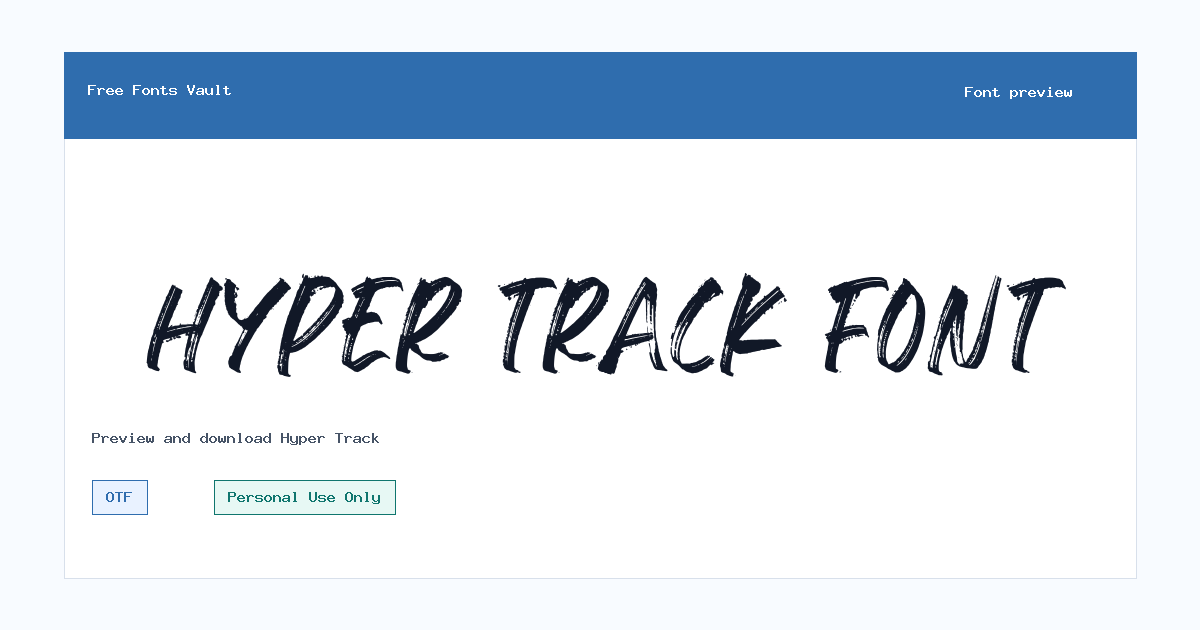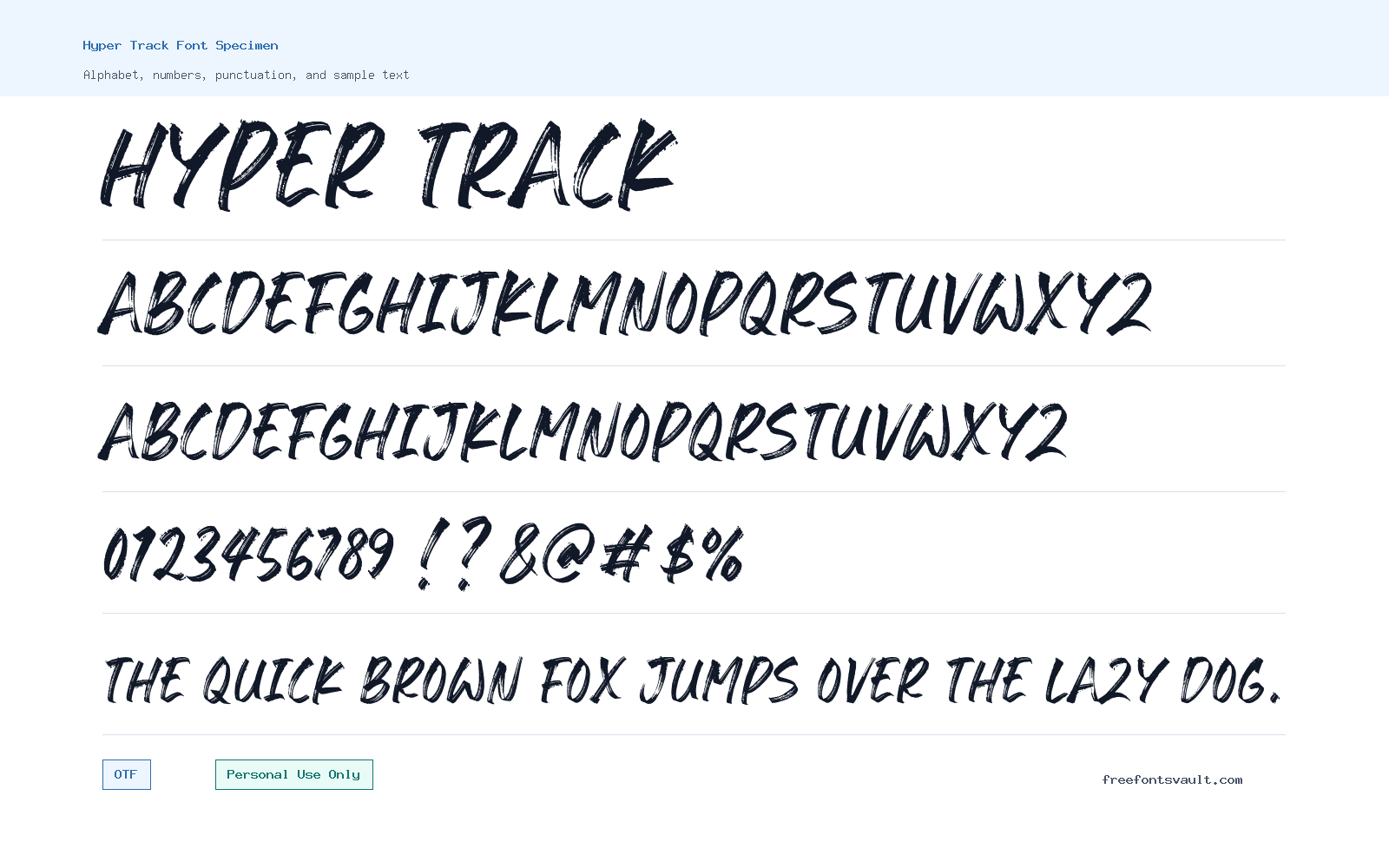
Hyper Track
- Designer Timur Type Studio
Hyper Track font.
Hyper Track is a brush script font with a fast, hand-lettered feel. It is best suited to short display text where you want movement, personality, and a casual handwritten look.
About Hyper Track Font
Hyper Track uses a script style that feels more expressive than formal. The letters are likely to work best when they have room to breathe, especially in titles, logo mockups, poster lines, social graphics, quote images, and other short text settings. Because it is a brush script, the font is not meant to replace a clean text face for paragraphs or long reading. Use it where the shape and rhythm of the words matter as much as the message itself.
- Brush script style with an energetic handwritten appearance
- Logos, name designs, badges, and short branding mockups
- Posters, social media graphics, quote images, and attention-grabbing headings
The designer is listed as Timur Type Studio.
Use Hyper Track for short words and phrases, then check spacing and readability in the preview before installing. For longer information, combine it with a plain companion font and keep Hyper Track for the main accent text.
What kind of font is Hyper Track?
Hyper Track is a brush script font. It has a handwritten display style that works best for short, expressive text rather than long paragraphs.
What should I test before using it in a design?
Preview your exact headline, name, or phrase. Check whether the letters connect clearly, whether the spacing feels natural, and whether the text stays readable at the size you need.